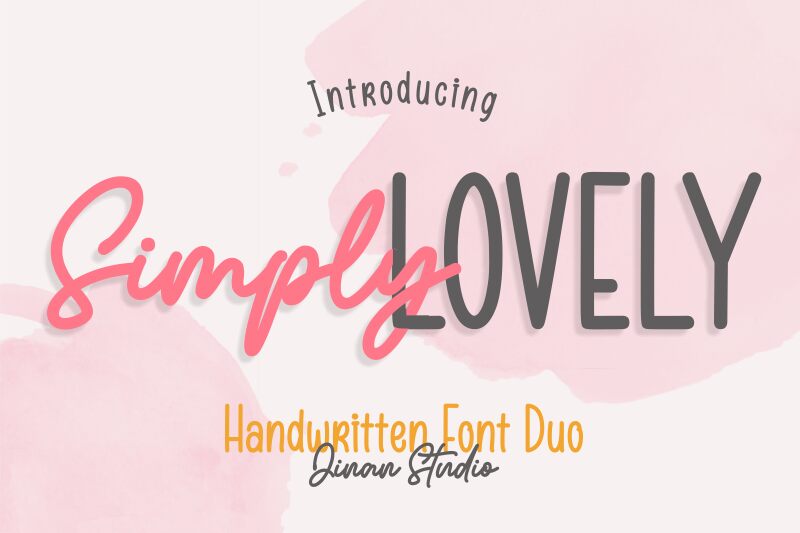
Simply Lovely Sans by Ainun Jinan is a captivating handwritten font that radiates charm and personality. Its condensed form gives it a sleek, sophisticated appearance while maintaining an inviting and playful essence. The flow of each letter embodies a sense of fluidity, invoking the warmth and spontaneity of casual handwriting.
The versatility of Simply Lovely Sans makes it perfect for a wide range of creative applications. Whether you are designing wedding invitations, crafting engaging social media posts, or creating charming brand logos, this font adds an elegant touch with its distinctively personal style. Bursting with character yet easy to read, Simply Lovely Sans is the ideal choice for projects that seek to combine aesthetic appeal with heartfelt expressiveness.